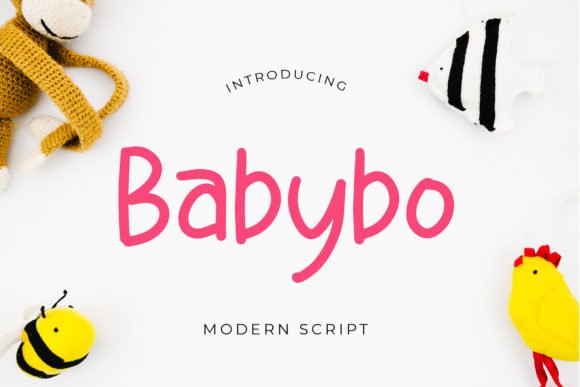
Designing a World of Wonder for Kids
Do you remember the first time you designed a birthday invitation for your little one? The joy, the excitement, and the desire to make it extra special for your child’s big day? For designers, creating engaging and playful designs for kids is a delightful challenge. It’s a chance to tap into our inner child and bring a smile to their faces.
That’s where the Babybo Font comes in – a delightful display font that’s specifically designed to make children’s themed designs stand out. With its cute and playful look and feel, the Babybo Font is a valuable addition to any designer’s toolkit. Whether you’re creating a nursery decor, a kids’ party invitation, or a children’s book cover, this font is sure to bring a touch of magic to your design.
Babybo Font Key Features
• Unique Characteristics: Babybo Font features a playful, cursive script with rounded edges and smooth connections, giving it a friendly and approachable feel.
Babybo Font Review
I recently had the chance to work with the Babybo Font, and I must say it’s a delightful addition to any design project. ✨ One of the things I love about this font is its playful, whimsical feel, making it perfect for child-related projects or designs that need a touch of innocence.
• Its rounded edges and smooth curves create a soft, approachable look.
• It’s a great choice for body text, as it’s easy to read and understand.
• ⚠️ The font may not be the best choice for formal or professional designs, as it’s more suited to casual or creative projects.
• ⚠️ Some users may find the font’s rounded edges and soft curves too simplistic or childish.
Overall, I think the Babybo Font is a great addition to any designer’s toolkit. While it may not be the best choice for every project, it’s a versatile and playful option that can add a touch of whimsy to your designs. With a little creativity, you can use this font to create truly unique and engaging designs.
For a more authentic look, pair Babybo Font with distressed or vintage design elements.
For a unique look, combine Babybo Font with hand-drawn or watercolor design elements.
For a modern look, pair Babybo Font with clean and minimalist design elements.
Babybo Font is ideal for:
• Baby-themed designs, such as nursery decor and baby announcements.
• Whimsical and playful designs, such as invitations and party decorations.
• Children’s book illustrations and educational materials.